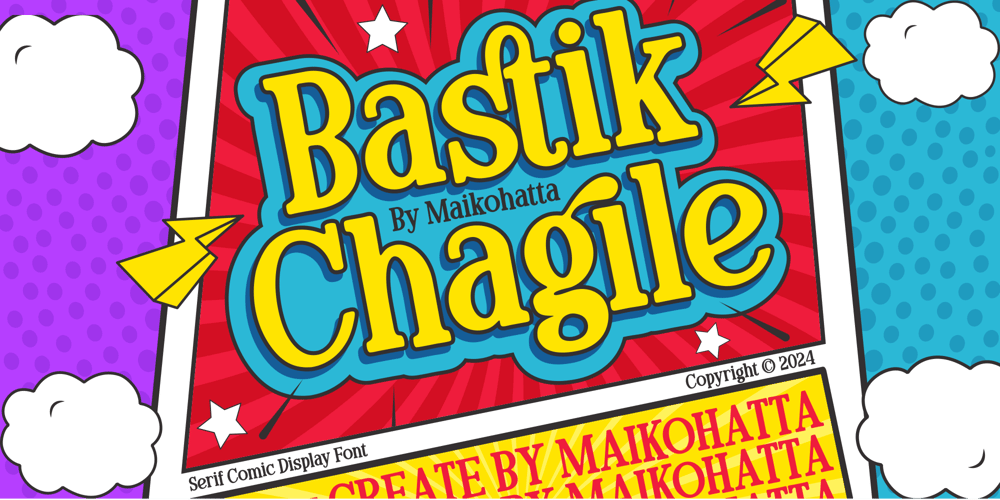
Bastik Chagile Font Family was designed by Gilang Ternadho and published by Maikohatta. Bastik Chagile contains 1 styles and family package options. Introducing our new product Bastik Chagile – Serif Comic Display FontThis font is characterized by reflecting joy, cheerfulness and a light atmosphere with a handwritten style often found in comics or cartoons.This font is perfect for projects that want to highlight elements of playfulness and fun, such as poster designs, invitation cards, comics, or promotional materials aimed at a younger audience or those looking for a fun feel.